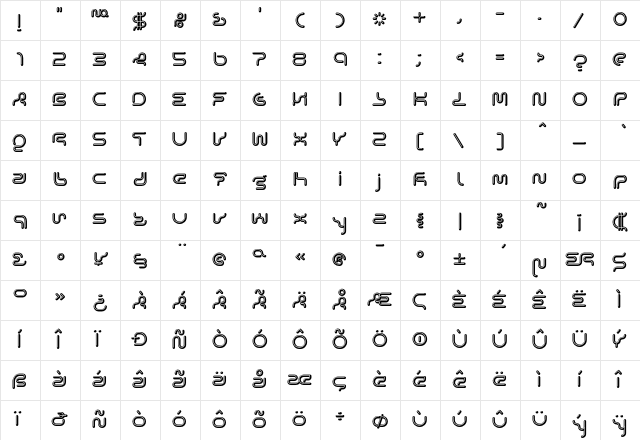
Lexigraph A
Design Context for Lexigraph Typeface
Lexigraph is a composed and adaptable typeface that performs quietly and consistently across a wide range of design contexts.